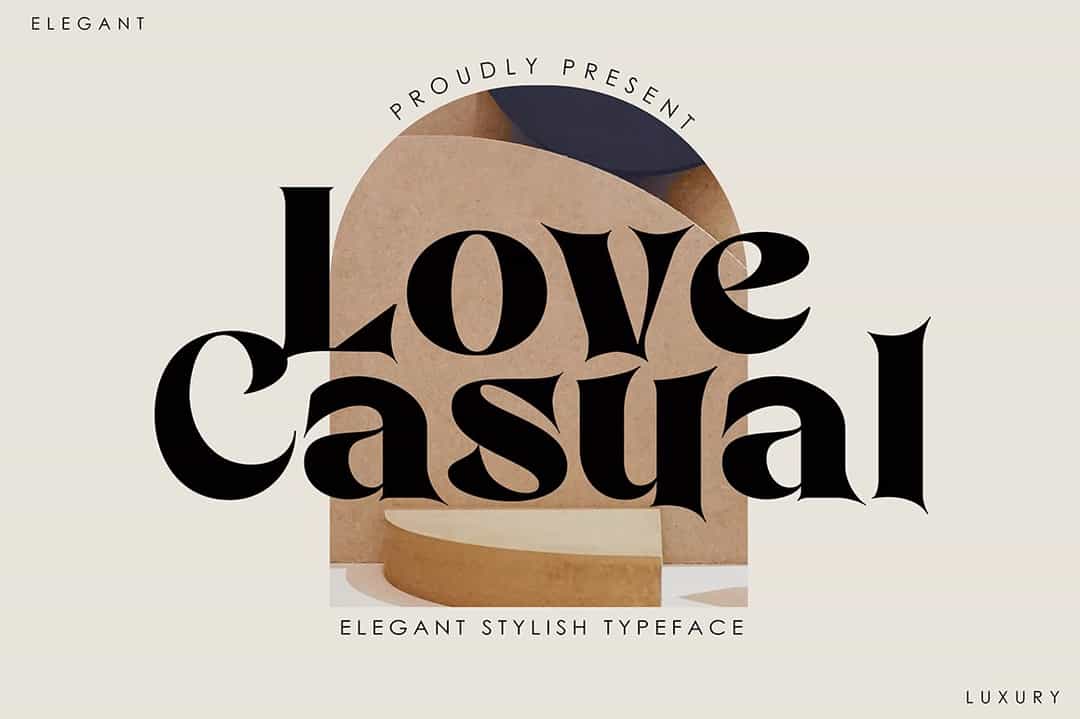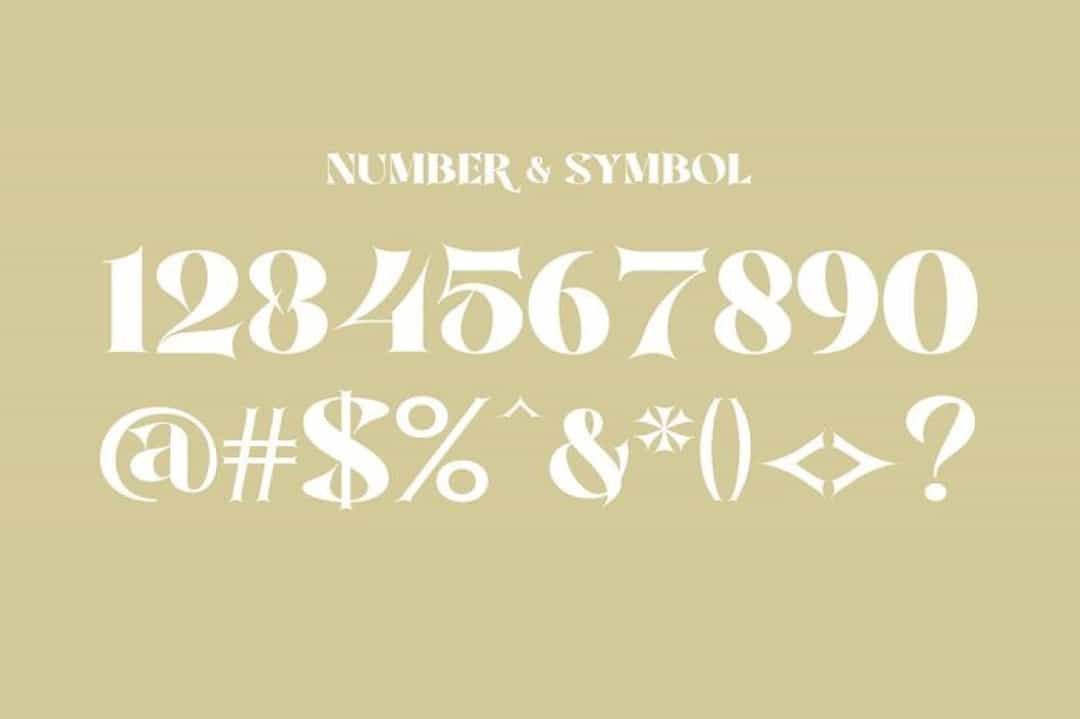
Love Casual is an elegant and fashionable serif font featuring multiple alternate character types, multilingual support, and exclusive Ligatures. Perfect for logos, branding projects magazines wedding invitations poster packaging posters clothing websites headers websites as well as trendy text overlays on any background picture!